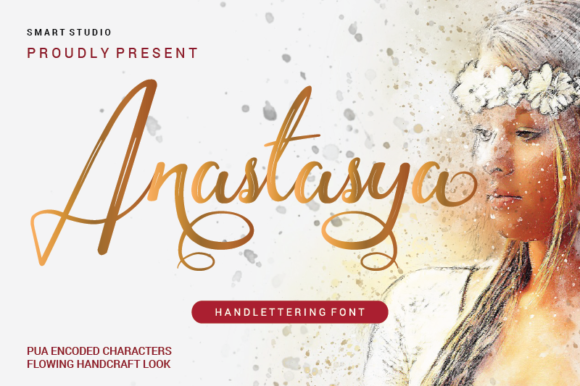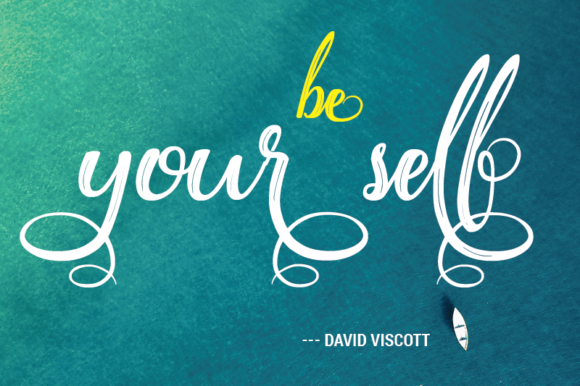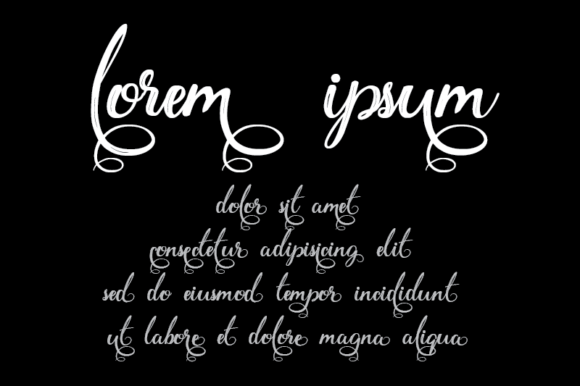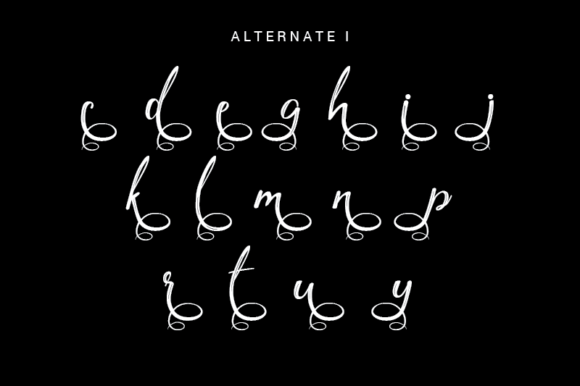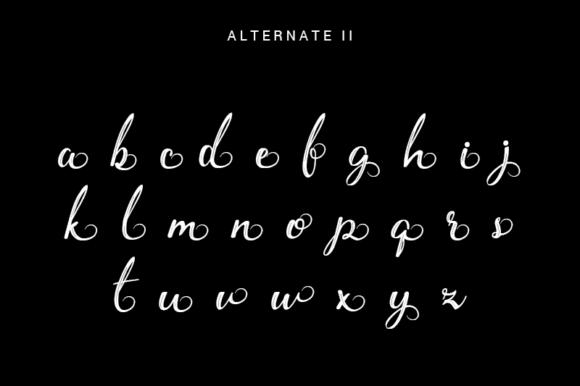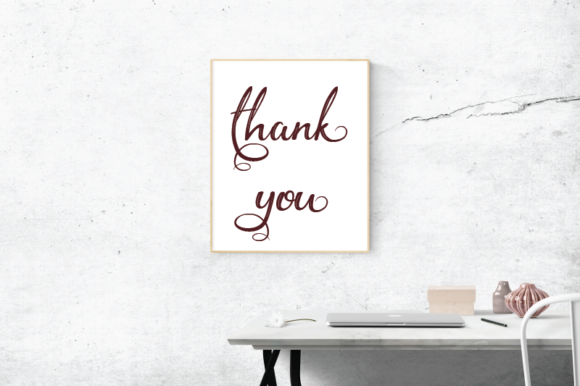
Anastasya Font
About Anastasya Font
Introducing “Anastasya,” a delicate, elegant, and flowing handwritten font that is sure to enchant you and elevate your designs to new heights. With its beautiful and well-balanced characters, this font is a perfect match for a wide range of creative projects, allowing you to bring your most imaginative ideas to life.
The graceful strokes and smooth lines of “Anastasya” give it an air of sophistication and timeless beauty. Its delicate nature adds a touch of elegance to any text, making it ideal for a variety of applications, including wedding invitations, thank you cards, quotes, greeting cards, logos, business cards, and more.
Whether you’re designing for a formal occasion or a casual project, “Anastasya” effortlessly adapts to suit your needs. Its versatility makes it a valuable addition to your font library, ensuring that you have a reliable and elegant option for various design projects.
The flowing nature of “Anastasya” gives it a sense of movement and fluidity, adding a dynamic and expressive quality to your text. This can help evoke emotion and create a captivating visual experience for your audience.
“Anastasya” is designed to be both charming and sophisticated, making it a versatile choice for a broad range of creative applications. Its natural and handwritten feel brings a personal touch to your designs, making them more relatable and engaging to your audience.
With “Anastasya” at your disposal, you have a powerful tool to create stunning and memorable designs. Experiment with different styles, layouts, and color palettes to discover the full potential of this beautiful font.
Whether you’re a professional designer or someone who enjoys crafting creative projects, “Anastasya” will become an invaluable asset in your toolkit. It offers you the opportunity to add a touch of elegance and flair to your work, leaving a lasting impression on anyone who sees it.
So, let your creativity soar with “Anastasya” as your companion. Embrace the delicate and flowing nature of this handwritten font and see how it transforms your ideas into works of art. Allow “Anastasya” to breathe life into your designs and captivate your audience with its timeless charm.